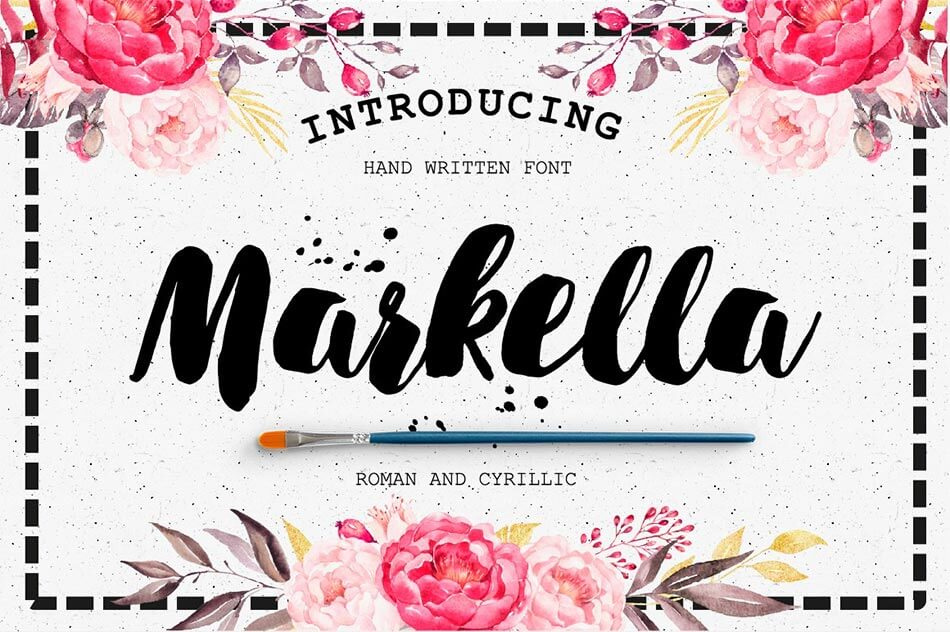
Markella Font
Markella Font is a charming and handwritten-style typeface that brings a personal, handcrafted feel to any project. Its fluid strokes and natural irregularities make it an ideal choice for invitations, greeting cards, and social media posts. The font's friendly and approachable character also makes it great for branding for small businesses, blogs, and creative ventures. Whether you're designing a whimsical logo or adding a personal touch to your website, Markella Font adds warmth and authenticity.
The most exciting aspect of Markella Font is its ability to infuse designs with a sense of genuine human connection. Unlike more rigid, geometric fonts, Markella feels organic and dynamic, as if each letter was drawn with care. This quality makes it perfect for projects that aim to feel personal and heartfelt. It can easily evoke a feeling of nostalgia or creativity, making it a powerful tool for visual storytelling. It’s a font that stands out for its unique personality and emotional resonance.
The Markella Font family provides a range of options to enhance your creative workflow. The family typically includes a Regular weight and a Bold weight, as well as stylistic alternatives and ligatures to give your text a more custom, hand-lettered look. These features allow you to avoid repetitive letterforms and create a truly unique aesthetic. For example, using the ligatures can connect certain letter pairs beautifully, mimicking real handwriting and adding an extra layer of sophistication to your design.